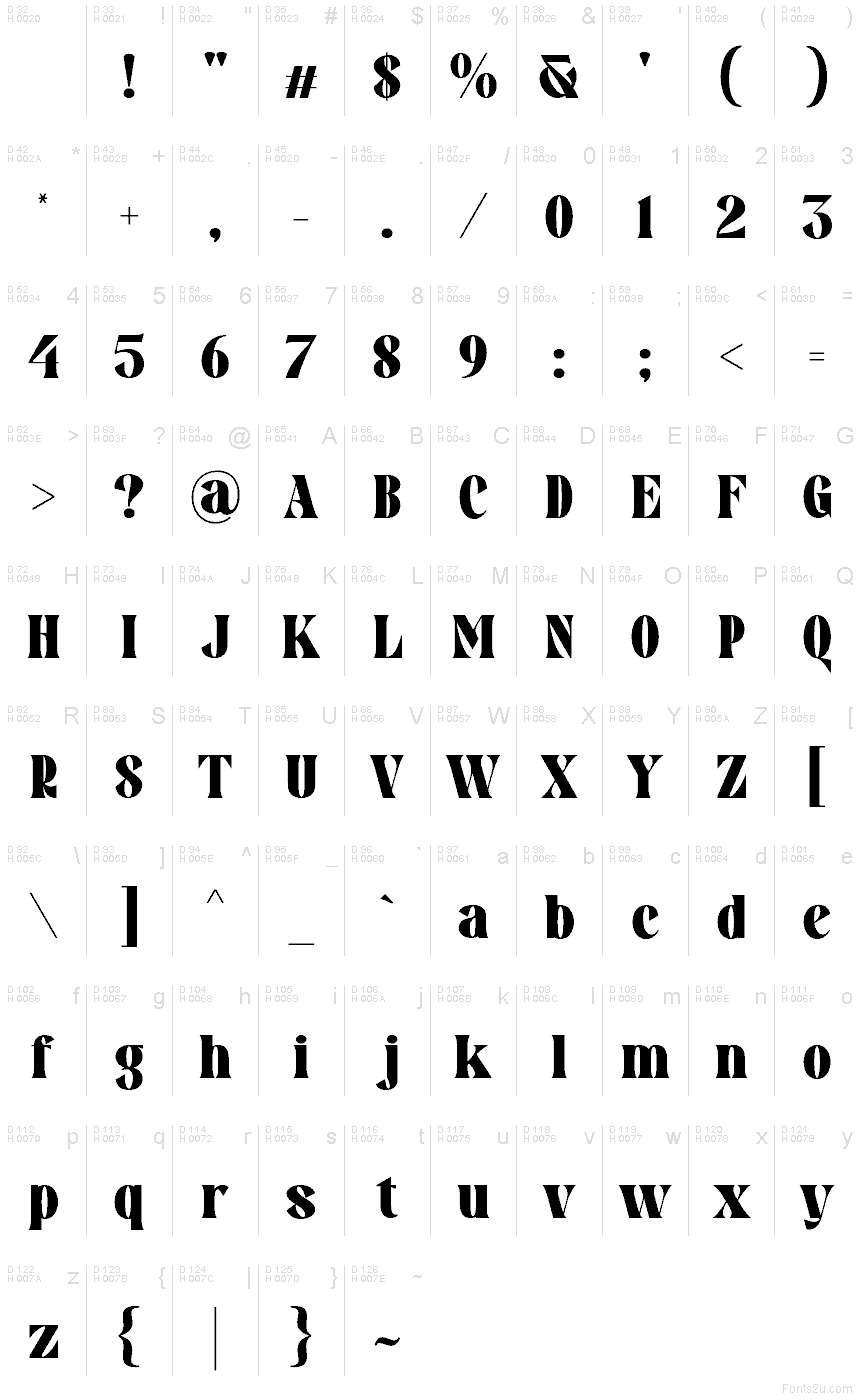
PronemaSerif-Regular
Pronema Serif font by Tebaltipis Studio is a versatile and legible typeface. It combines traditional elements with modern aesthetics for a unique look. Its compact, bold, air and slightly rounded forms create confident and authoritative typography that enhances any experience.